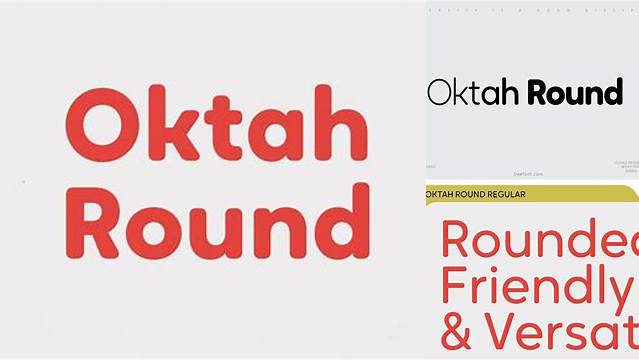
Oktah Round Regular Font: Free Download & Ultimate Guide
Oktah Round Font: Exploring its Characteristics
Alright, let's get to know the Oktah Round font better. This font is known for its clean and rounded appearance, which makes it incredibly versatile. Its smooth curves and balanced proportions give it a modern and friendly feel. The 'Regular' in its name means it's a standard weight, making it easy to read in various sizes. This font doesn't have complex serifs or overly decorative elements, meaning it's a great choice for both display and body text. Think of its design as effortlessly cool, offering a touch of sophistication without being pretentious. You'll find that the rounded shapes lend themselves well to digital interfaces, branding, and even print materials. The uniform stroke weight ensures that the font looks consistent and polished in different applications. Compared to other fonts, the Oktah Round Regular font strikes a perfect balance between approachability and readability. It's not too playful to be taken seriously, and it's not too formal to feel out of touch. This makes it a top pick for many designers looking to create a visually appealing and professional look. Its neutrality allows it to blend well with other design elements, making it a great option for various design projects. The overall feel is quite inviting and easy on the eyes. You'll love how it brings a fresh, modern vibe to any design.
Analyzing the Oktah Round Regular Font's Design
Let's dive deeper into the design of the Oktah Round Regular font. Notice how each letter is crafted with a consistent curve, creating a harmonious and visually pleasing effect. The spacing between letters is usually well-balanced, ensuring readability even at smaller sizes. Designers often pay close attention to details like the height of the ascenders (the parts of letters that rise above the x-height, such as 'b' and 'd') and the descenders (the parts that go below the baseline, like 'p' and 'q'). In the Oktah Round Regular font, these are often carefully considered to ensure good legibility. The font's design is often optimized for both digital screens and print media. This means it looks great whether you're viewing it on your laptop, phone, or a printed brochure. Look at how the font behaves in different sizes. Does it maintain its clarity and elegance, or does it become distorted? The Oktah Round Regular font is often designed to scale well, preserving its character regardless of size. Observe the details in each letter, such as the curve of the 'o' or the sharpness of the 't'. These subtle design choices make a big difference in the overall look and feel of the font. The consistency in its design shows the quality of the font. The uniformity ensures a unified look. Pay attention to how the font interacts with other design elements, such as colors, images, and other fonts. Does it blend seamlessly, or does it stand out in a jarring way? The design of the Oktah Round Regular font is often crafted to be versatile, allowing it to complement different design styles. It's also designed with accessibility in mind, making sure people with different vision abilities can comfortably read it. These detailed elements add up to the font's overall effectiveness.
Advantages of Using the Oktah Round Font
There's a reason why the Oktah Round Regular font is so popular, and it all comes down to its advantages. First off, its readability is outstanding. This is a crucial factor, especially when used in body text. Its clear design makes it easy for readers to quickly grasp the information. Secondly, its versatility is another major plus. It works well for a wide range of applications, from websites to logos and print materials. Third, its modern aesthetic gives a contemporary feel to any design. The rounded design has a clean and fresh look that appeals to modern audiences. The font's visual appeal enhances the overall quality of your designs. It presents a professional image, which is particularly useful when you're trying to build a brand. Also, because it is a simple design, it's highly adaptable. It blends seamlessly with other design elements. It doesn't compete for attention but rather complements your overall design. It's also highly adaptable. The Oktah Round Regular font helps in creating designs that feel timeless. This means your designs won't quickly become outdated. You can maintain a current look for a long time. Ultimately, it saves you time and effort because it's a very easy font to work with. With such advantages, it's no wonder that the Oktah Round Regular font is a go-to choice for many designers. The advantages make it a useful tool.
Using the Oktah Round Regular Font Effectively
Now that you've got the Oktah Round Regular font downloaded and installed, let's talk about using it effectively. The key is to match the font with your design's purpose and audience. Its clean and rounded design makes it a great choice for a variety of projects. Consider using it for website headings, body text, and even for brand logos and social media graphics. The versatility of the font is one of its biggest strengths. Think about your design's overall aesthetic. Does it need to be modern, friendly, or professional? The Oktah Round Regular font fits perfectly with a contemporary and inviting style. Use the font in different sizes and weights to see what works best for your design. Experiment with bold, italic, and regular styles to add emphasis and visual interest. Always make sure your text is readable, especially at smaller sizes. This is crucial. Pair the font with other fonts that complement its style. Avoid using too many different fonts. Keep it simple and harmonious. It's also important to consider the context of your design. For example, it might work better in a website or digital interface. Test your design on different devices and screen sizes to ensure it looks great everywhere. You should also consider the colors and imagery you use. Ensure the font's style aligns with them. Ultimately, the effective use of the Oktah Round Regular font depends on how you tailor it to your specific design needs. Try different combinations and styles.
Conclusion: Embrace the Oktah Round Regular Font